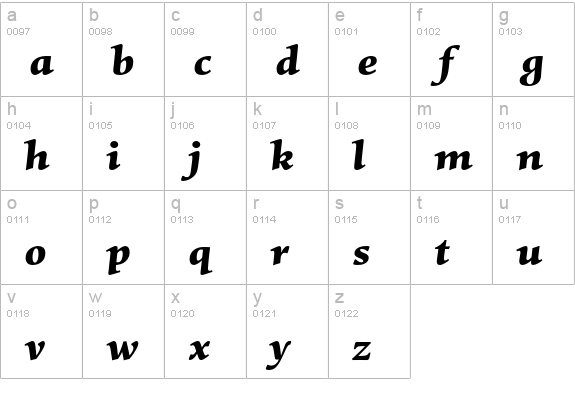
Mentor Black Italic OsF Font Details
Mentor Black Italic OsF is a maximum-weight, dramatic, italic variant in the Mentor typeface family \xE2\x80\x94 well suited to maximum-impact headlines, posters, and packaging.
Mentor Black Italic OsF font is a stylish and sophisticated typeface that exudes elegance and modernity. With its sleek design and sleek lines, this font is perfect for adding a touch of class to any project. The sharp angles and bold strokes of Mentor Black Italic OsF make it stand out and grab attention, while still maintaining a sense of refinement. This versatile font is ideal for use in a variety of design projects, from logos and branding to packaging and editorial design. The italicized style adds a dynamic and energetic feel to the text, making it perfect for conveying a sense of movement and excitement. Best of all, Mentor Black Italic OsF font is available for free download at FontsMarket.com. So whether you're a designer looking to add a touch of sophistication to your work or a business owner in need of a stylish font for your branding, Mentor Black Italic OsF is the perfect choice for you. Download it now and elevate your designs to the next level!